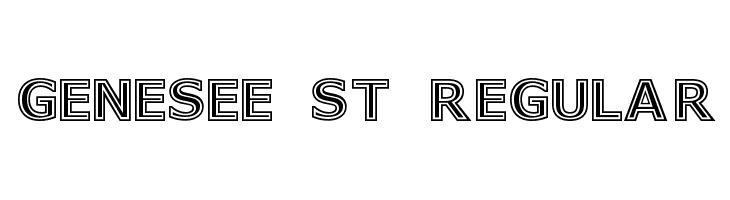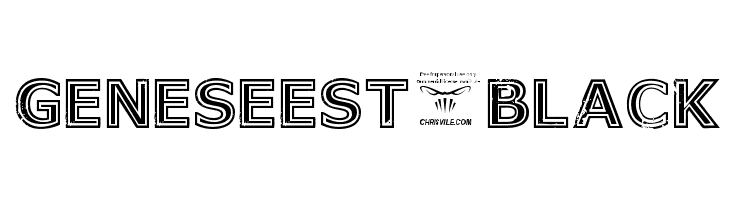
( Sebastian - greekhouseoffonts.com )
A bold, double-outline font inspired by traditional Greek lettering, ideal for decorative and impactful designs.
( weknow - Wino S Kadir - www.creativefabrica.com/designer/weknow/ )
A playful and decorative font with rounded edges and intricate curves.
( Fonts by Noah Type - noahtype.com - Personal-use only. For commercial use please contact owner. )
A playful, bold font with a hand-drawn, comic book style.
( Fonts by dcoxy - Greg Medina - Personal-use only. For commercial use please contact owner. )
A playful, rounded font with smooth curves and a friendly style.
( Fonts by dcoxy - Greg Medina - Personal-use only. For commercial use please contact owner. )
A playful, rounded font with a friendly and approachable style.
( Fonts by Four Lines - zain Fahroni - Personal-use only. For commercial use please contact owner. )
A dynamic and energetic script font with fluid, cursive strokes.
( Fonts by Gassstype )
A bold, playful font with a hand-drawn, whimsical style.
( Fonts by Gassstype )
A bold, playful font with a hand-drawn aesthetic and rounded characters.
( Dry Heaves - www.drybohnz.com/ )
A hand-drawn, chalkboard-style font with a rough, textured appearance.
( Fonts by Kong Font - fontkong.com - Personal-use only. For commercial use please contact owner. )
A lively, expressive script font with a fluid, handwritten style.
( Fonts by Kong Font - fontkong.com - Personal-use only. For commercial use please contact owner. )
An elegant, italic script font with flowing, handwritten strokes.